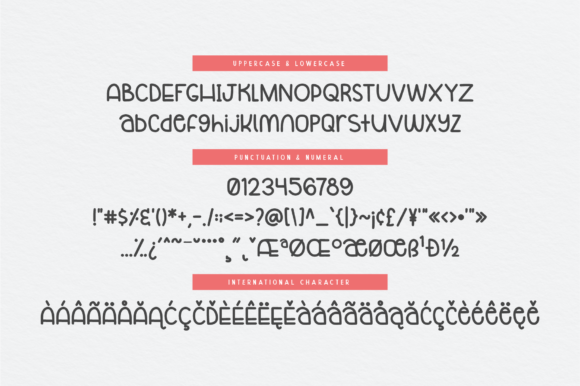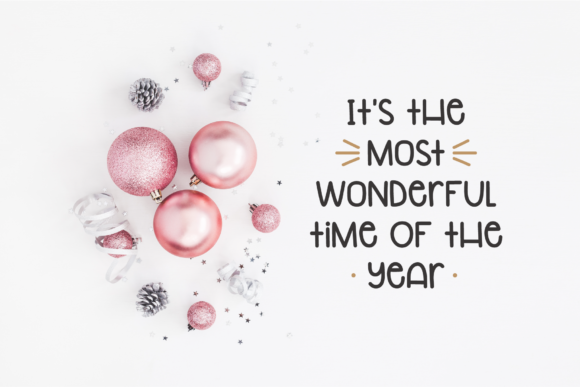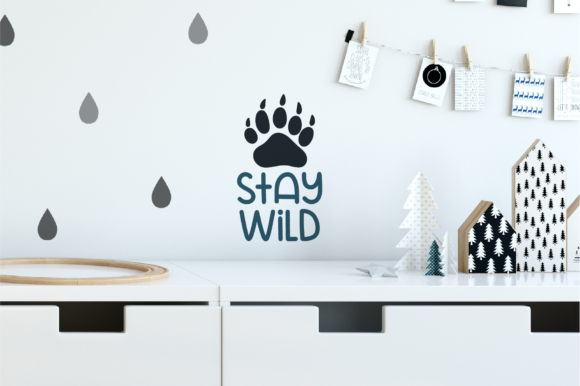
HomeScript FontsGrenadine Font Script Fonts Grenadine Font FacebookXPinterestWhatsApp Grenadine Font Poster 2 Grenadine Font Poster 3 Grenadine Font Poster 4 About Grenadine Font Grenadine is a cute and fun script font. It has clean letters which will give a playful feel to your designs. DOWNLOAD NOW People also explored Auttera Signature Font Clara Font Arkanotes Font The Big Font Hippie Koala Font Beach Font Rolanda Story Font Pinkerston Font Tequileria 252 0 TagsGrenadine Font Previous articleJack Sans FontNext articleRevis Font LEAVE A REPLY Cancel reply Comment: Please enter your comment! Name:* Please enter your name here Email:* You have entered an incorrect email address! Please enter your email address here Website: Save my name, email, and website in this browser for the next time I comment. Personal Use Free Cuttering Personal Use Free Read more about this font Sileighty Personal Use Free Read more about this font Mounets Personal Use Free Read more about this font Cranberry Gin Personal Use Free Read more about this font BLOG 5 Fonts That Will Dominate Design Trends in 2026 5 Fonts for 2026 That Will Dominate Design Trends Typography plays a critical role in visual communication, and as we look ahead to 2026, it’s... Elegant Wedding Invitation Fonts – Handwritten & Script Fonts Best Fonts for T-Shirt Design – Top 2025 Picks Modern Sans-Serif Fonts That Brands Love in 2025